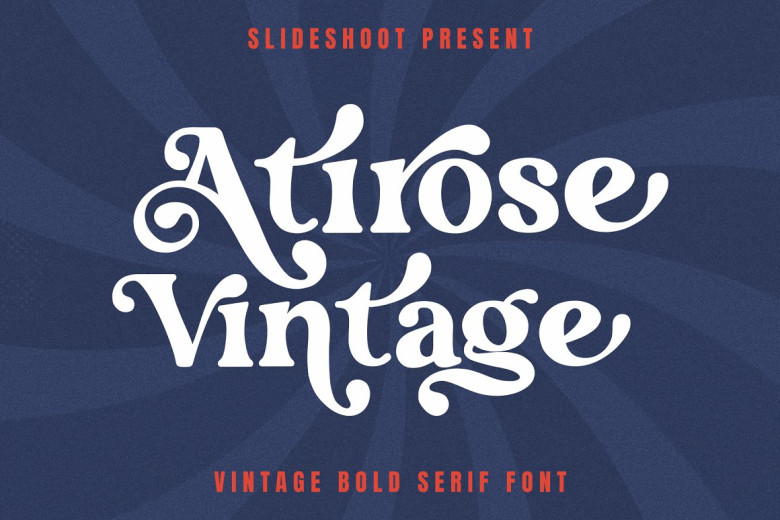
Atirose Vintage Font
Atirose Vintage Serif is an elegant blend of vintage and modern serif, and can be utilized for logos, titles and branding magazines, product packaging and invitations. Atirose Vintage features Ligatures for easy customization as well as sleek curvatures that give it an air of sophistication to the project at hand.
Atirose Vintage Retro Serif Font